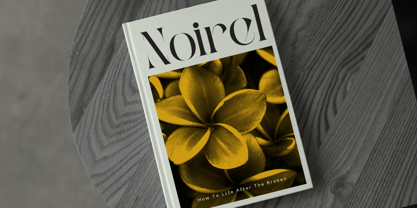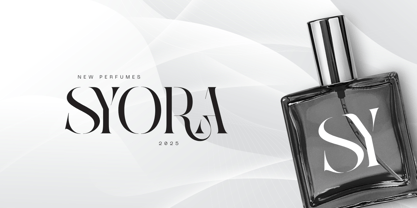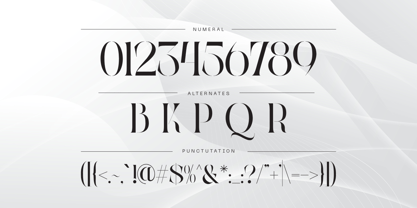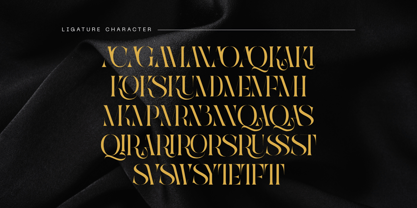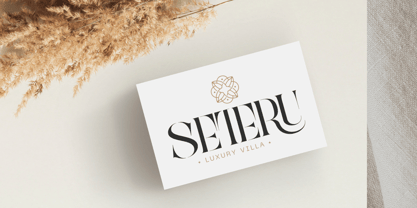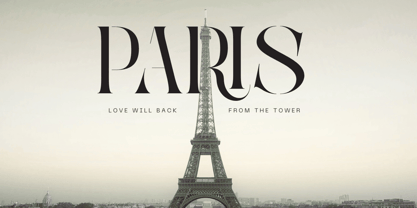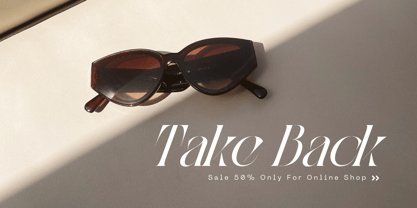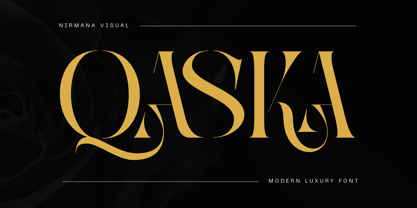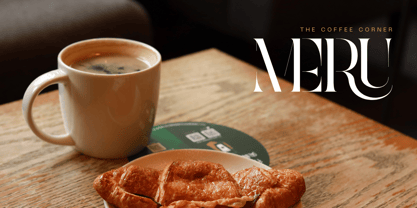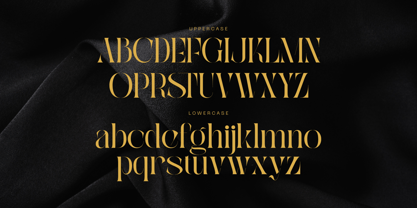
Qaska Luxury
by Nirmana Visual
The Qaska Luxury Font Family was designed by Sigit Dwipa and published by Nirmana Visual. Qaska Luxury contains 2 styles and family package options. More about this family
Qaska Luxury is a timeless serif font that blends classic charm with modern elegance. Featuring both Regular and Italic styles, it’s perfect for logos, branding, packaging, and editorial designs. With refined curves and vintage-inspired details, Qaska Luxury brings a touch of sophistication and heritage to any project. Ideal for those who seek a strong, stylish identity with a nostalgic flair.